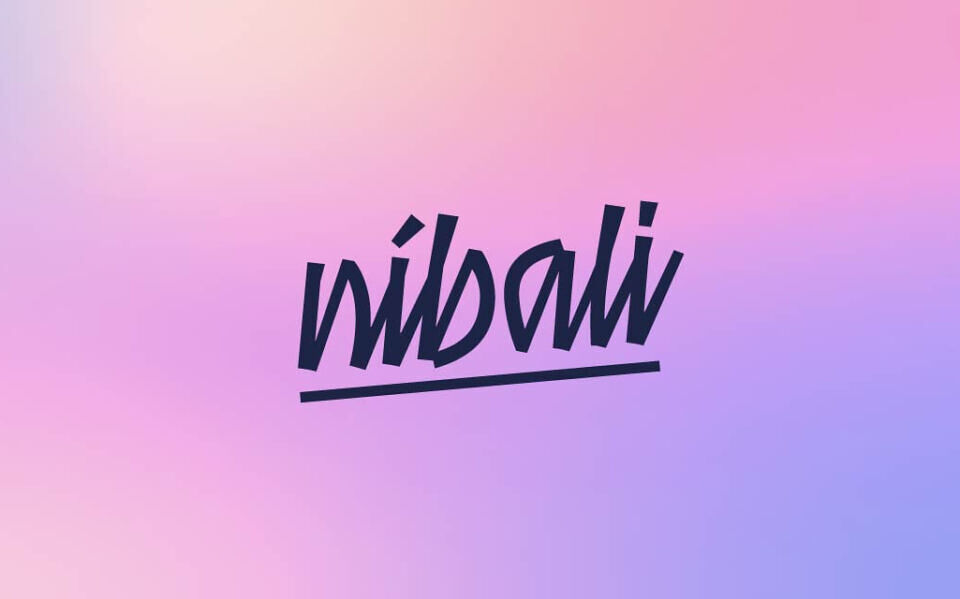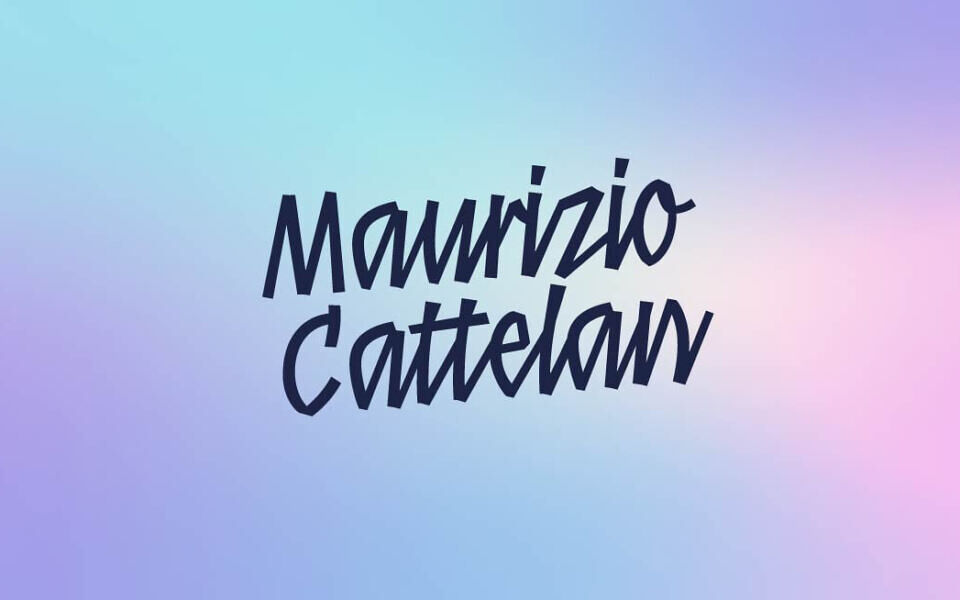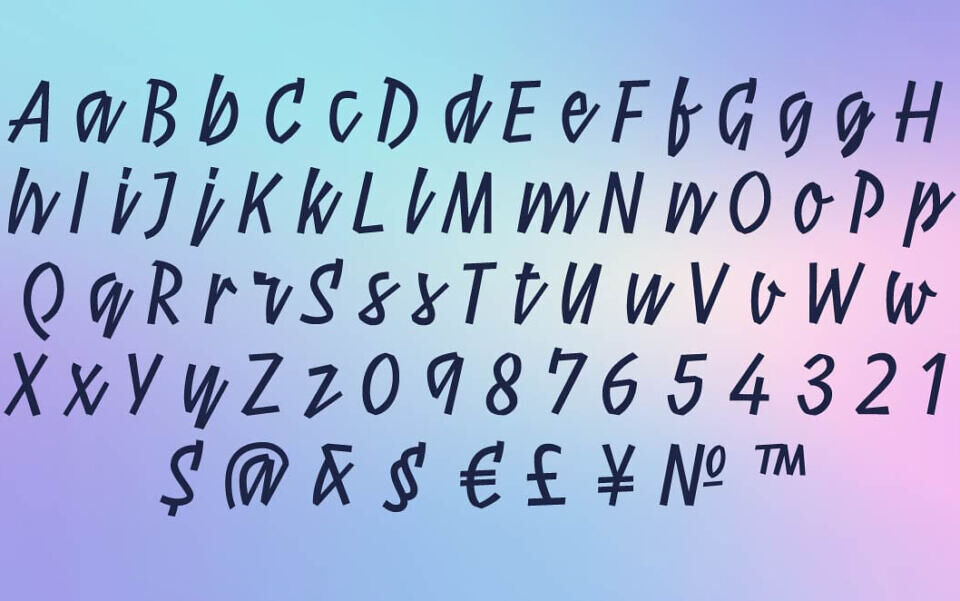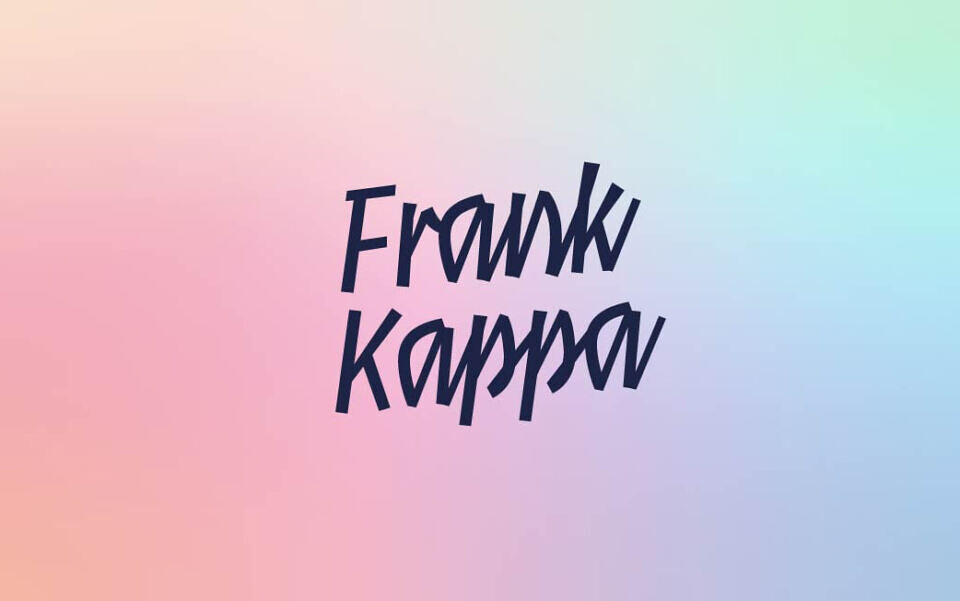
Níbali Font is a distinctive typeface designed for modern applications. Crafted with precision, it offers a sleek, versatile style suitable for branding, editorial, and digital projects. Its clean lines and unique character shapes ensure readability and visual impact.